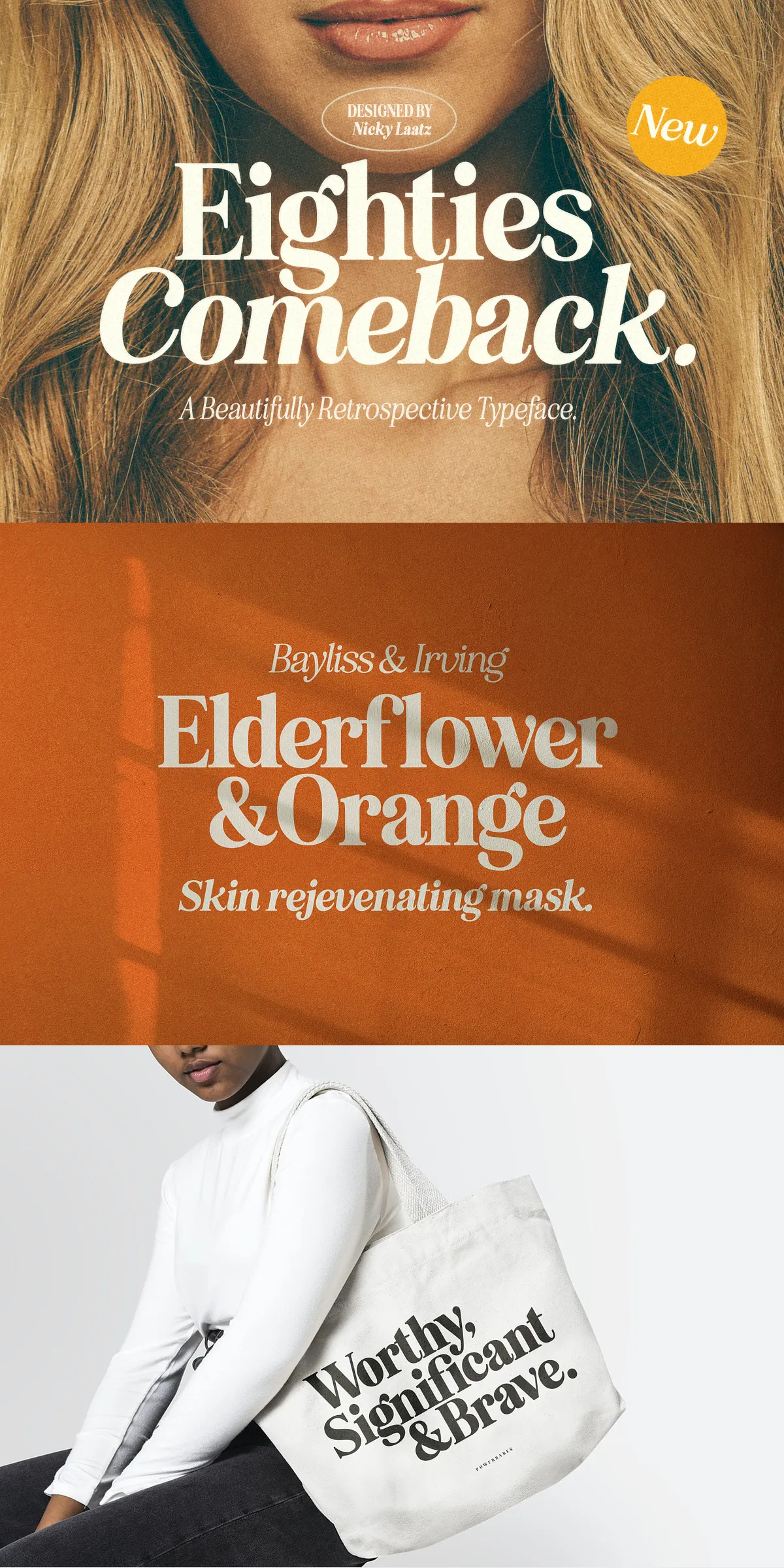
Introducing Eighties Comeback, a flirtatiously charming typeface family that channels the vibrant spirit of the 1980s with a modern twist. This extensive collection includes an impressive 70 fonts, offering designers an extraordinary range of options to bring retro aesthetics into contemporary projects. Additionally, the package features two handy variable fonts designed specifically for Adobe Photoshop and Illustrator CC 2020 and later, enabling seamless customization and flexibility.
Inspired by Iconic Magazine Advertisements of the 70s and 80s
Eighties Comeback draws its inspiration from the bold, colorful, and playful magazine advertisements that defined the 1970s and 1980s. This typeface family captures the essence of that era’s graphic design trends, including dynamic letterforms, energetic curves, and distinctive stylistic details. By reimagining these vintage influences for the 21st century, Eighties Comeback offers a fresh yet nostalgic typographic voice that resonates with both retro enthusiasts and modern designers alike.
Extensive Font Family with Variable Fonts for Maximum Flexibility
The sheer breadth of the Eighties Comeback family is one of its most remarkable features. With 70 individual fonts, designers can explore a vast spectrum of styles, weights, and effects, allowing for highly customized and expressive typography. Whether you need bold display fonts for headlines, playful scripts for branding, or subtle variations for body text, this family has you covered.
Super Versatile and Easy to Explore
Eighties Comeback’s versatility makes it suitable for a wide range of design applications. From branding and packaging to editorial layouts and digital media, this typeface family adapts effortlessly to different contexts. The extensive previews available showcase the diverse looks and moods that can be achieved, demonstrating the family’s ability to manifest endless creative possibilities.
Whether you want to evoke nostalgia in a vintage-inspired campaign or add a playful retro flair to a modern project, Eighties Comeback provides the tools to do so with style and confidence.
A Designer’s Delight: Crafted with Passion and Creativity
The creation of Eighties Comeback was a labor of love, reflecting a deep appreciation for the aesthetics of past decades combined with a passion for innovative typography. The designer’s enthusiasm shines through in every glyph, curve, and stylistic choice, resulting in a typeface family that is as enjoyable to use as it was to create.
By choosing Eighties Comeback, you not only gain access to a powerful typographic resource but also join a creative journey that celebrates the joy of design and the timeless appeal of retro style.